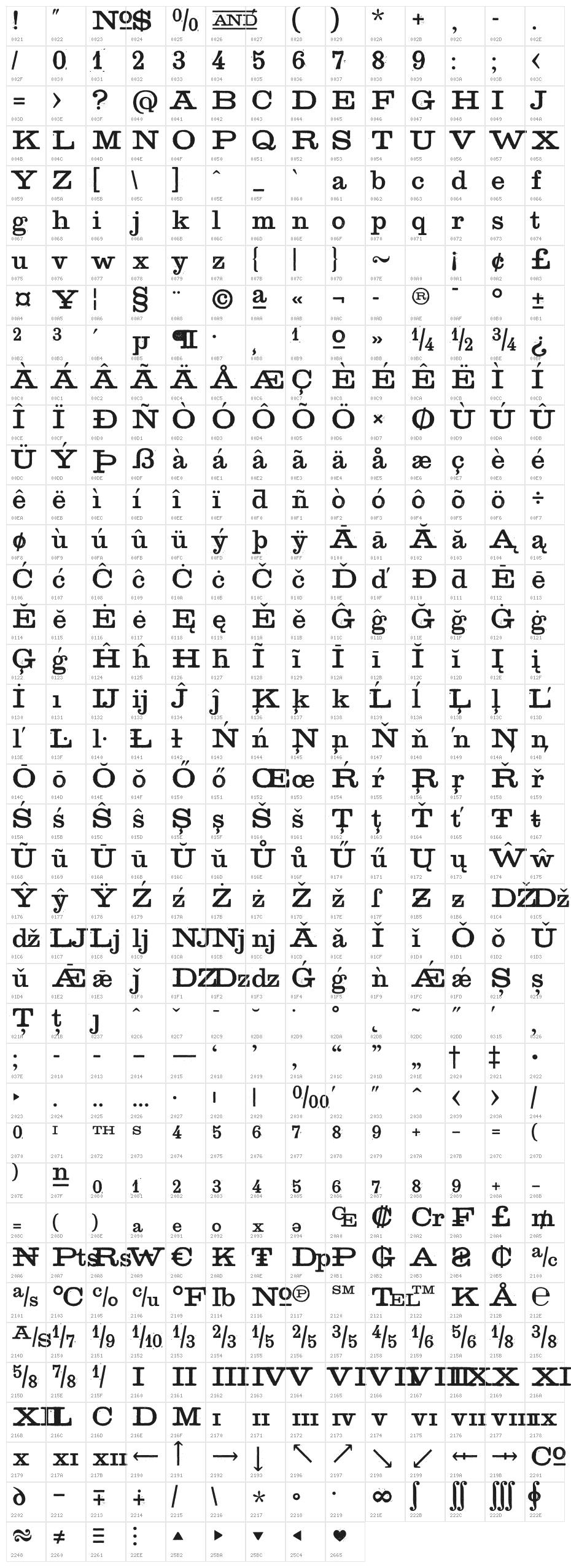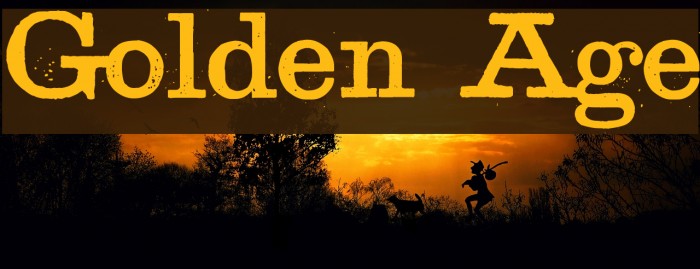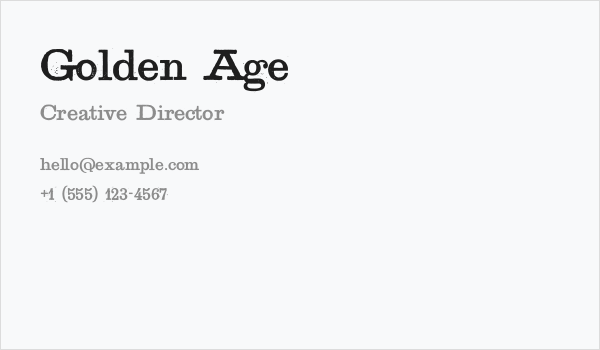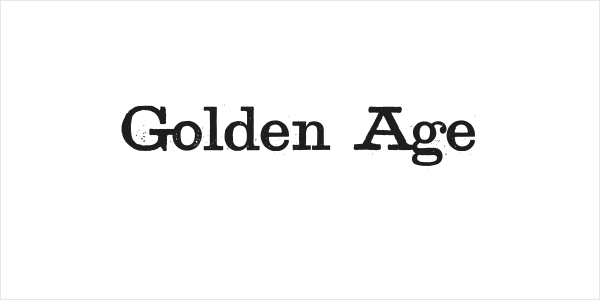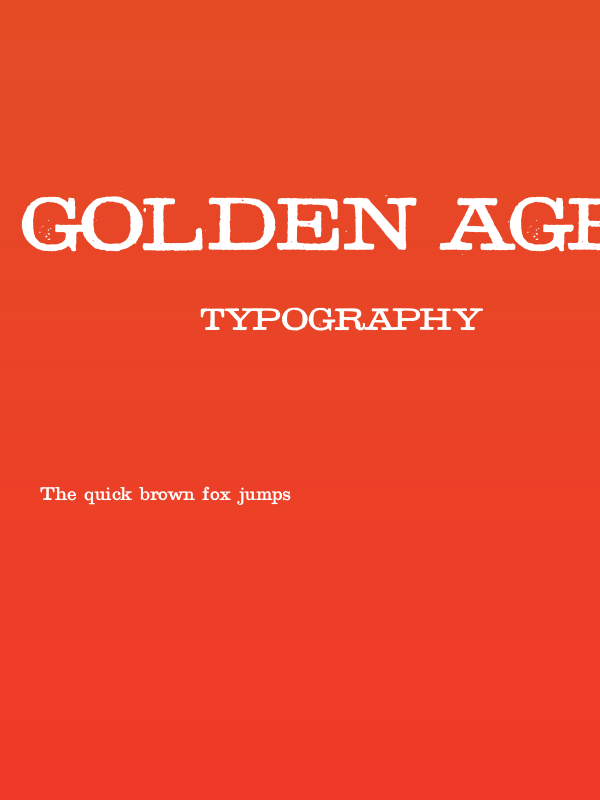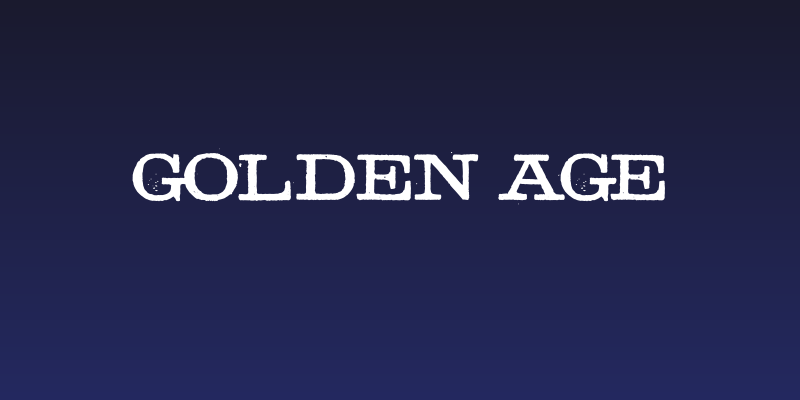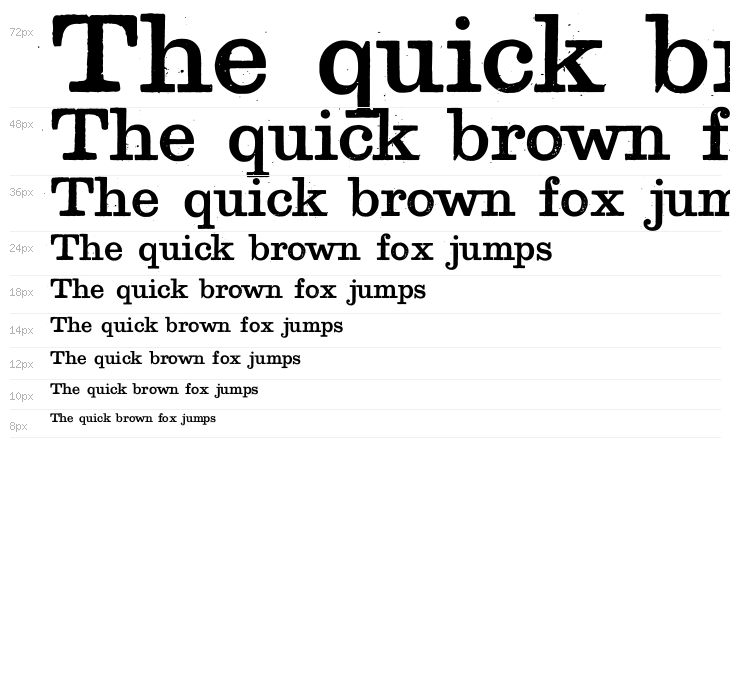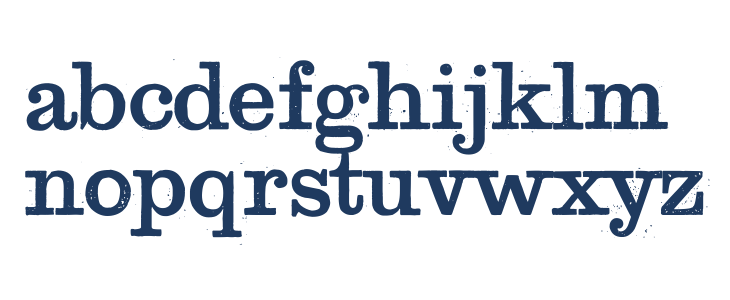
Golden Age Font
Golden Age Description
This font features a bold and robust design with a distinctly vintage aesthetic. The characters exhibit a strong serif style, with thick and thin stroke variations that enhance its classic appearance. The uppercase letters are particularly striking, with a commanding presence that makes them ideal for attention-grabbing headlines. The lowercase letters maintain the same boldness, ensuring consistency across text. Numbers are equally bold, with a slightly condensed appearance that complements the overall style. Special characters are included, adding versatility for various design needs. The font's texture gives it a slightly distressed look, adding to its aged charm.
| Proposed Projects | Ideal for vintage-themed posters, retro branding, book covers, and editorial design. |